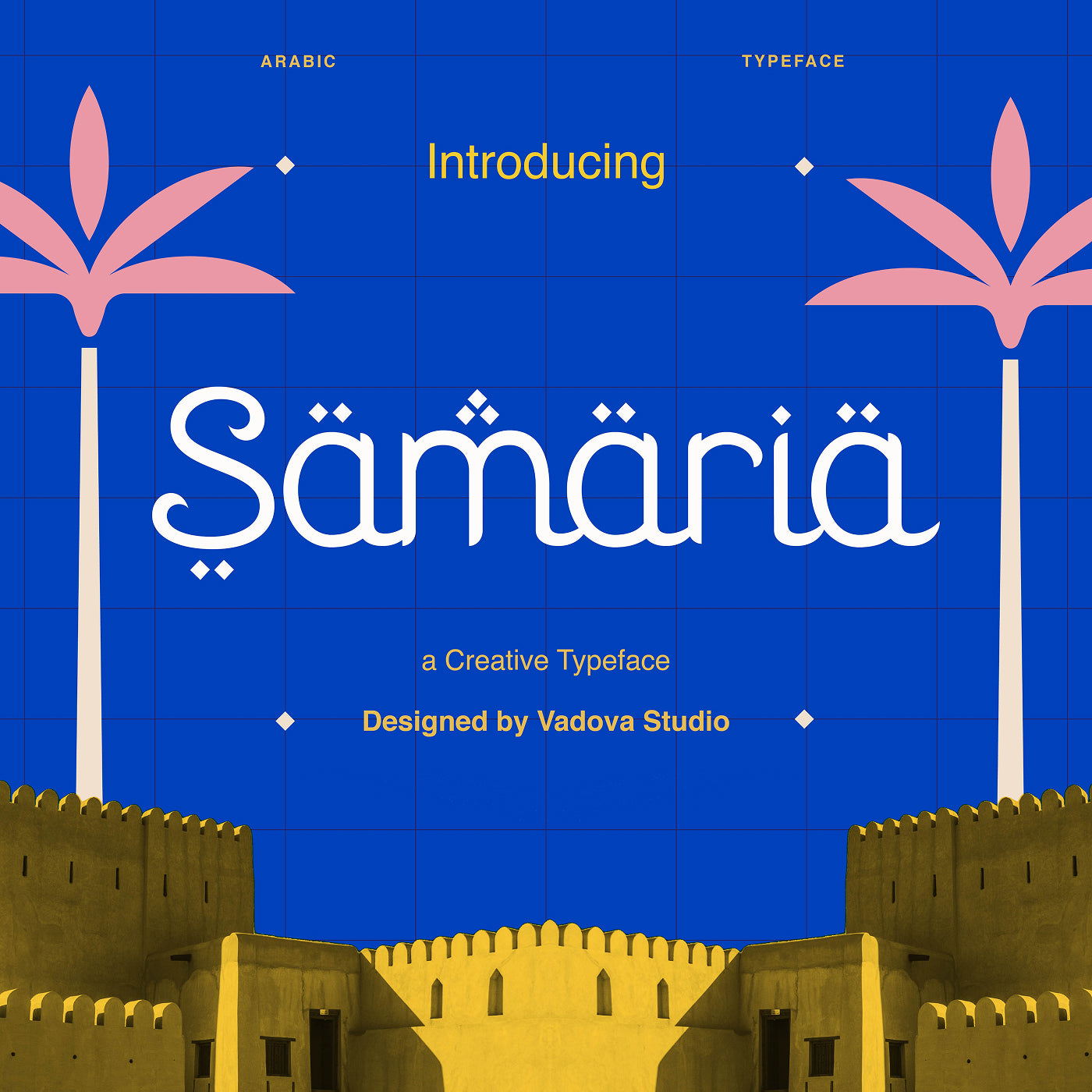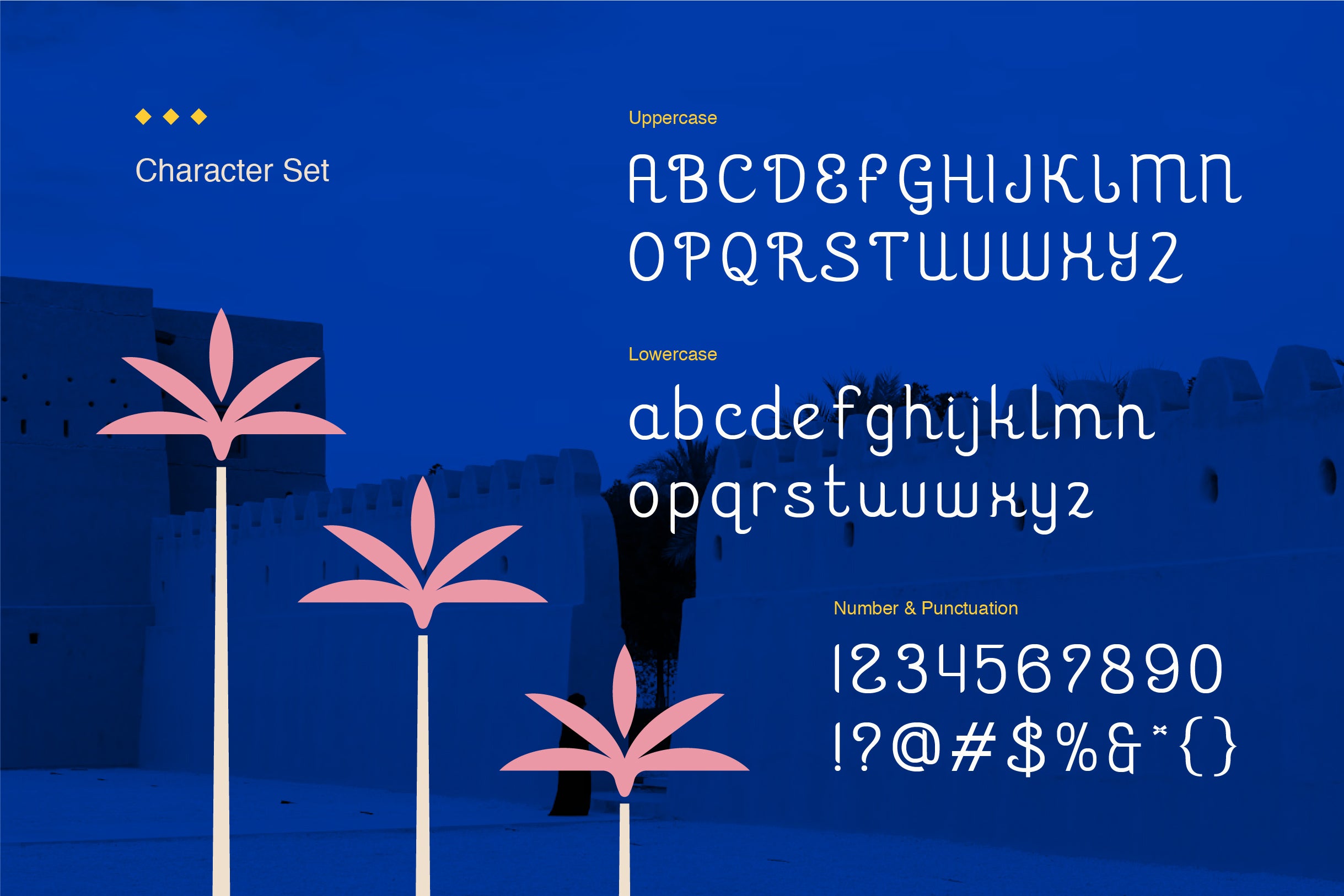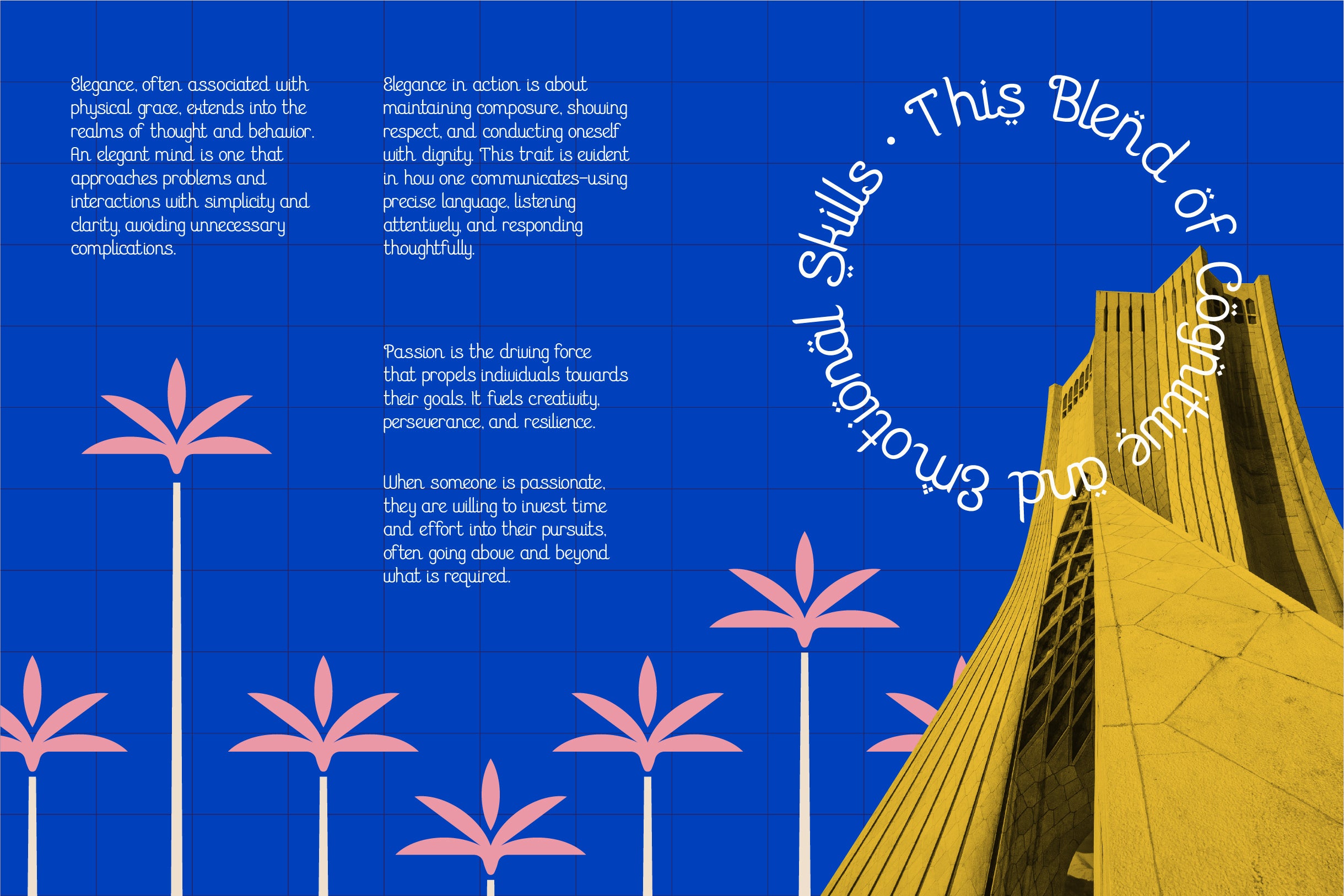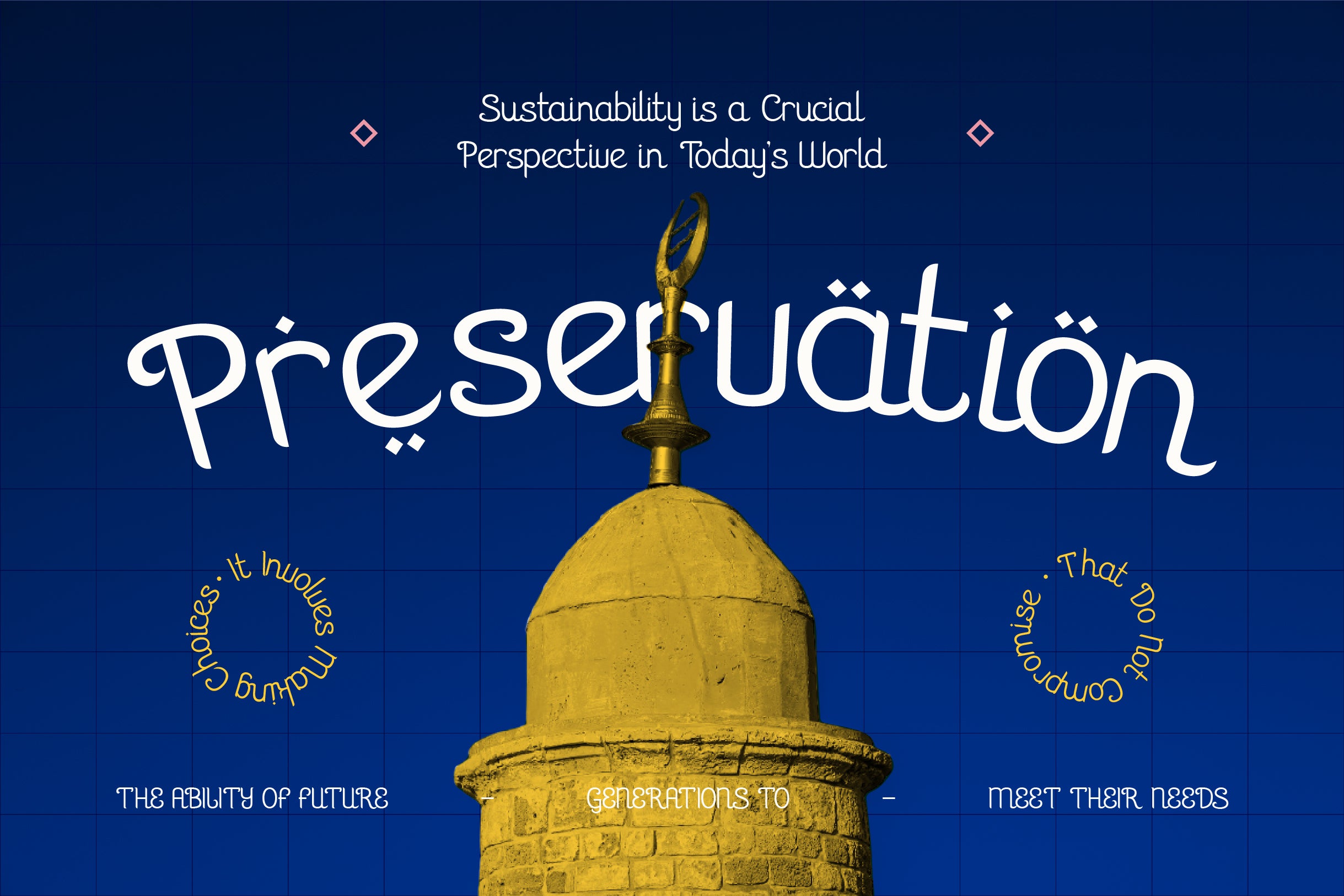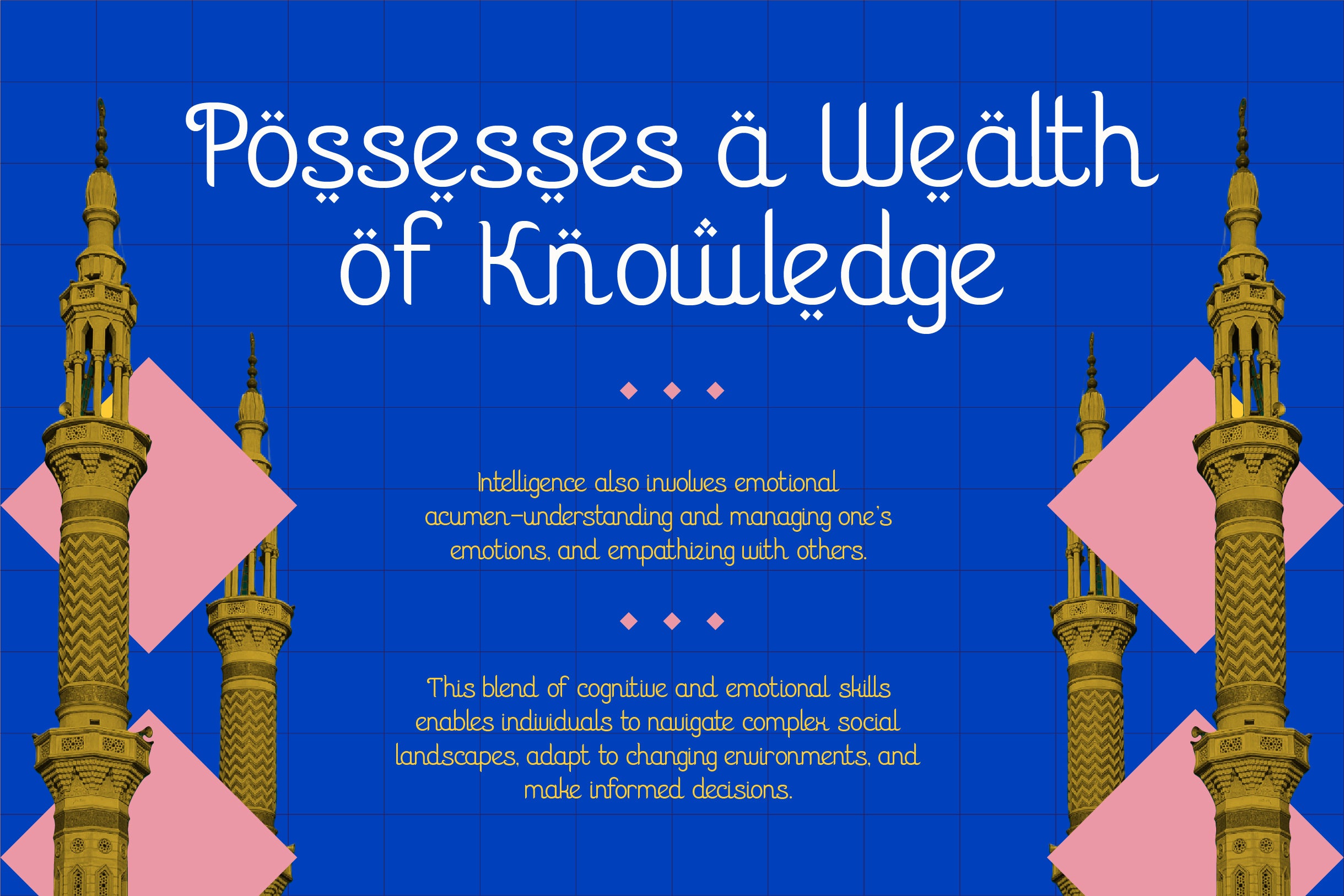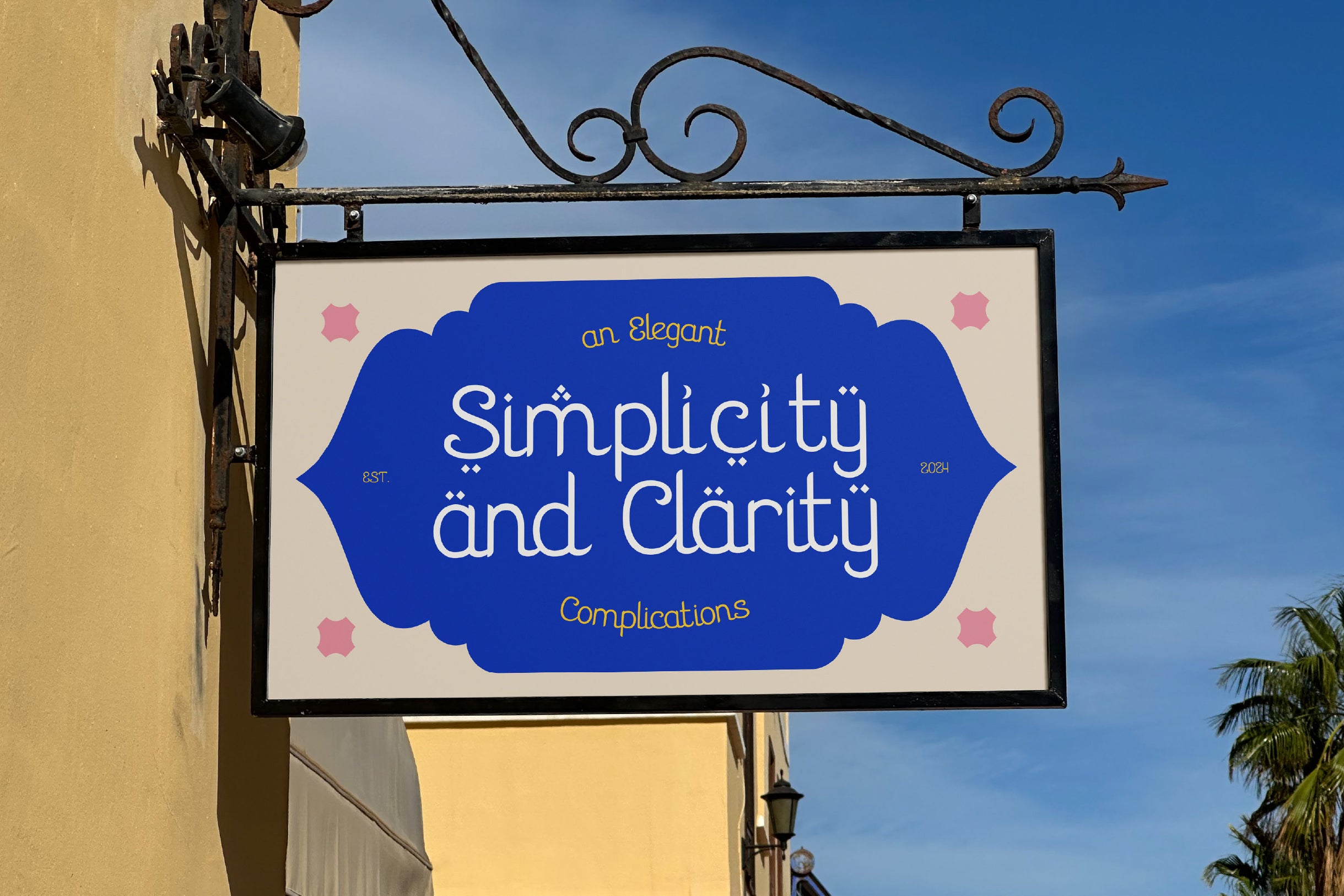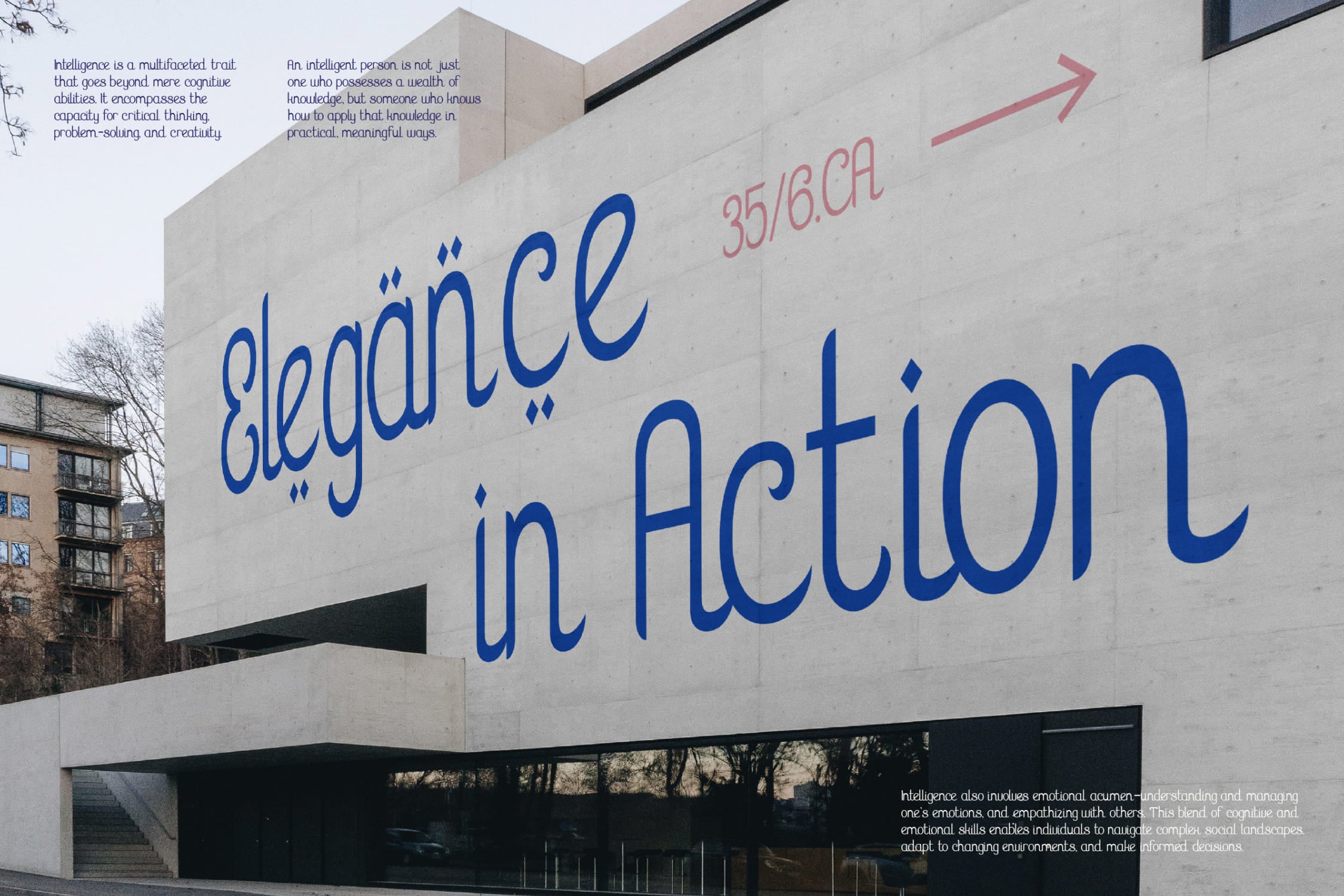
Samaria Arabic Typeface Font
Samaria is a unique decorative display font combining modern Latin forms with Arabic-inspired diacritics and folk motifs. Its playful elegance is infused with cultural symbolism from Middle Eastern visual traditions, making it perfect for Eid-themed designs, halal product packaging, children’s Islamic books, or artistic branding. With multilingual support, quirky curves, and geometric consistency, Sämärïä offers a fresh and modern take on Islamic-themed typefaces that balance friendliness with cultural authenticity.
Includes Ligatures & Alternates
The Samaria Arabic Typeface Font is a decorative display font that combines modern Latin forms with Arabic-inspired diacritics and folk motifs. It includes uppercase and lowercase characters, ligatures, alternates, numerals, and punctuation, and offers multilingual support, available in TTF, OTF, and WOFF formats.